This weeks installment of our Wednesday’s Font Round-Up is here! The first font, Jellyka-Estrya’s Handwriting was a font that one of members used in a design and I just loved it. This font really looks like a man’s handwriting. With the popularity of sketched images for web design, this font fits right in. Since Valentine’s Day is right around the corner, I wanted to give you a font that was usable but without hearts. The Kisstelle font is sweet without being overly lovestruck! But in honor of Valentine’s Day I included KR Heartalicious dingbat. This has so many really nice hearts. Panhead font comes next. It’s got a bit of western and grunge put together. I actually just used the swirls in a design and am very pleased. Finally, spinwerad is a great everyday font!
Jellyka Estraya’s Handwriting
Kisstelle
KR Heartalicious
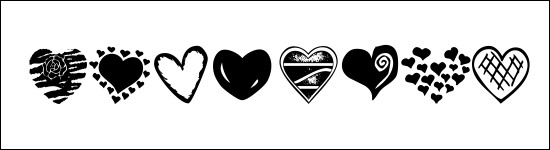
Panhead
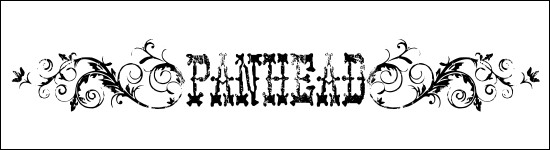
Spinwerad